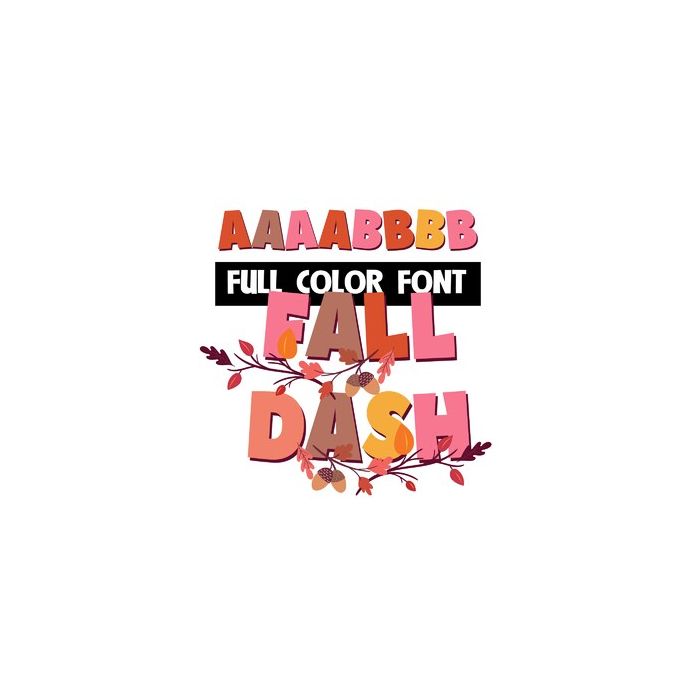
This full-color font features autumn colors and has a secondary upper and lowercase you can access through Silhouette's glyph map. There are two leaf flourishes you can access by typing triangle brackets.